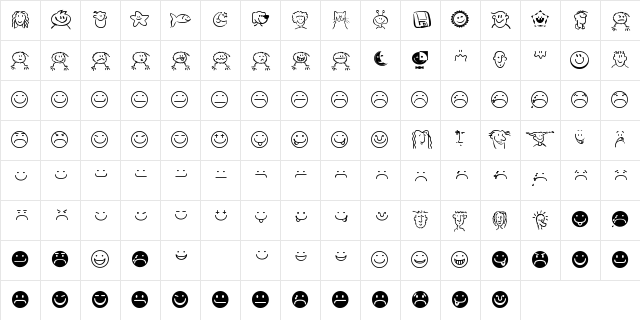
Complete Smileyface Font 3 Regular glyph index. Displaying only characters natively supported by Smileyface Font 3 Regular font.
Smileyface Font 3 is a composed and adaptable typeface that performs quietly and consistently across a wide range of design contexts.